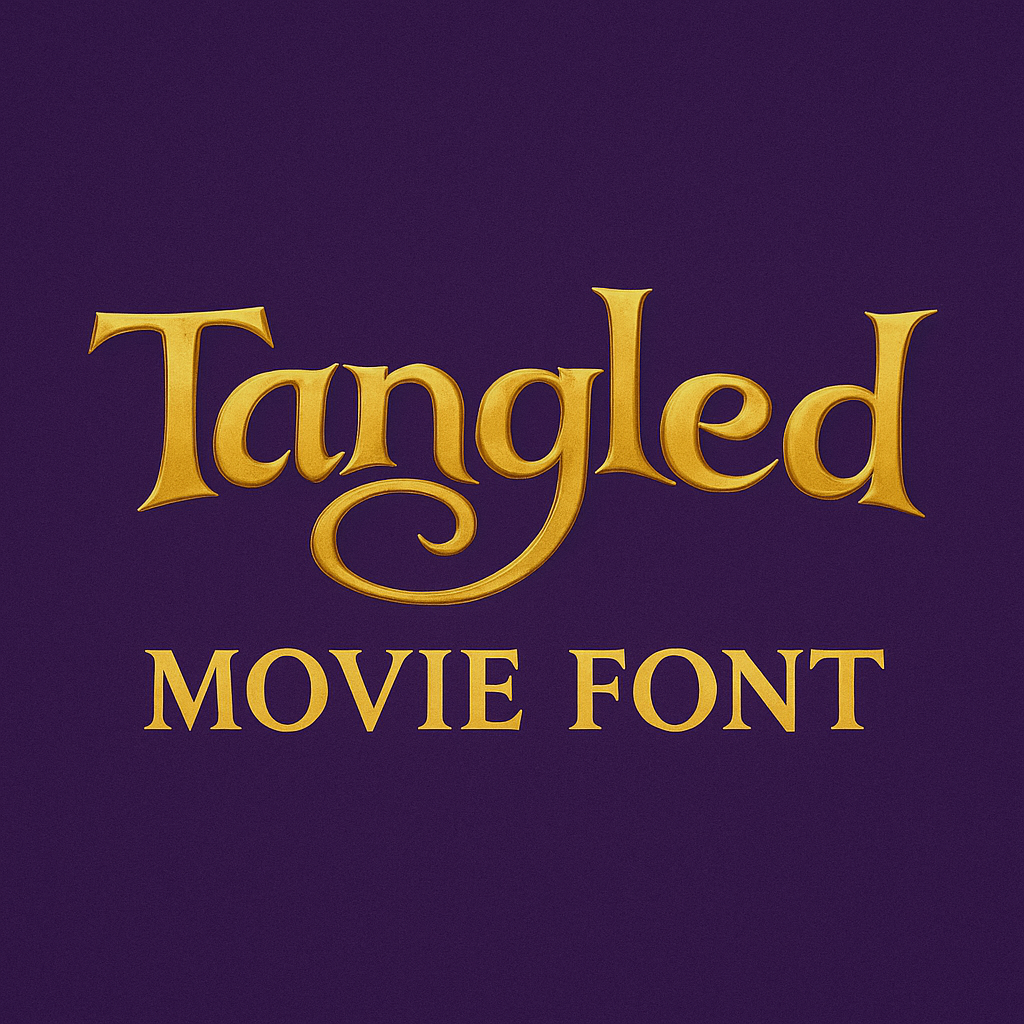
Tangled Movie Font: Introduction
Tangled’s 2010 Disney animated version gave us both a new magical treat of revisiting Rapunzel’s story while creating one of animation’s most visually captivating text styles in recent times. The Tangled movie font unifies magical fairy-world elements with home-made drawing techniques while delivering a substantial impact on the film’s fairy-tale-like visual design.
People who work with graphics and Disney fans, as well as fantasy typography researchers, will gain both creative ideas and operational knowledge from the Tangled font. This guide explores the origins of the Tangled font, illustrating its distinctive features and various uses, as well as substitute fonts, before analyzing why artists cherish this design so deeply.
Overview of the Tangled Movie Font
The Tangled movie font consists of the typefaces found throughout promotional materials and logo uses as well as product branding for the Disney animated movie Tangled. Disney usually orders unique movie fonts for its projects but the Tangled font achieved such popular success that fans along with designers attempted its reproduction.
The creators of Disney specifically developed the original logo without making it commercially available. However, a close replica font called Tangled 1.2, created by Esteban4058, is widely used as an alternative for fan art, event designs, and branding projects that seek a similar fairytale vibe.
History of the Tangled Typeface
When Disney began rebranding its animated princess films for a modern audience, Tangled marked a pivotal point. Originally titled Rapunzel, the movie underwent a title change to Tangled to appeal to a broader demographic. Alongside this change came the need for a logo that would capture the whimsy, fantasy, and humor of the story.
The font used for the film’s title was hand-lettered by a Disney design team—likely involving creative director John Lasseter’s aesthetic oversight—to evoke an ornate, medieval flair with a modern, accessible twist. The swirls, ligatures, and dramatic curves make the font feel like it leapt straight out of a magical storybook.
Key Features of the Tangled Font
While the official Tangled font is not publicly available, replica fonts like Tangled 1.2 capture many of its defining features:
1. Ornate Swashes
Swashes and flourishes on capital letters (especially the “T”) give the font a whimsical and enchanting flair.
2. Calligraphic Style
The font mimics traditional calligraphy with its brush-like strokes, uneven baselines, and hand-crafted feel.
3. Medieval and Fantasy Influence
The typography incorporates elements of Gothic and medieval scripts, aligning well with the fairy-tale genre.
4. High Contrast Strokes
Dramatic variations in line thickness help bring a sense of elegance and dynamic flow.
5. Decorative Yet Legible
Despite its ornamentation, the typeface remains readable, making it suitable for headings and titles in fantasy-themed projects.
Practical Applications of the Tangled Font
The magic of the Tangled font extends beyond just the silver screen. Here’s how designers and creatives can use it effectively:
1. Children’s Book Covers
Tangled-inspired fonts are ideal for storytelling formats—especially fairy tales, fantasy novels, or magical realism genres.
2. Party Invitations
Planning a princess party or a Disney-themed event? The Tangled font adds authenticity and charm to your invites.
3. Branding and Logos
For brands with a whimsical or fantasy identity (e.g., toy stores, children’s fashion, or themed cafes), the font can create a distinct visual voice.
4. Posters and Merch
Fan-made posters, art prints, t-shirts, and mugs inspired by Tangled or similar fantasy content benefit from the font’s playful aesthetic.
5. YouTube Thumbnails & Social Media
Creators crafting fairytale content or DIY channels often use this typeface for an engaging, on-brand appearance.
Design Tips for Using the Tangled Font
To get the most out of this unique typeface, follow these practical design tips:
- Use it in moderation. The font is highly decorative—ideal for headlines, not body text.
- Pair with clean fonts. Balance it with a simple sans-serif like Open Sans or Lato for readability.
- Add complementary elements. Scrollwork, gold gradients, and illustrated borders pair beautifully with this font.
- Consider your theme. Make sure the rest of your visual design (colors, imagery, tone) aligns with a fairytale or whimsical aesthetic.
Alternatives to the Tangled Movie Font
Looking for fonts with a similar storybook magic but with different vibes? Here are some alternatives:
Conclusion
The Tangled movie font serves as a visual representation of both wonder and creativity and imagination. This particular typeface provides Disney-like enchantment for various projects such as party materials and literary works as well as branding.
The custom-designed original font now lives on through Tangled 1.2 and other replica versions which let fans and designers enchant their creative output.